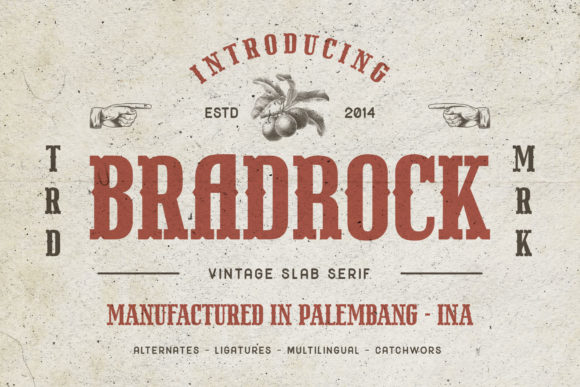
Bradrock Font: A Vintage Slab Serif Typeface for Your Retro Designs
Are you looking for a font that can instantly transport you back in time to the wild west era? Look no further than Bradrock, a vintage slab serif typeface inspired by old-school cowboy design and circus-style aesthetics. This font is perfect for creating retro-style logos, mugs, embroidery, prints, and more. In this article, we’ll dive into the features and benefits of Bradrock and explore how you can use it to add a touch of nostalgia to your designs.
What is Bradrock Font?
Bradrock is a slab serif typeface that draws inspiration from the classic designs of the American west. With its bold and rugged appearance, this font is perfect for creating eye-catching headlines, logos, and display text. The font’s vintage feel is reminiscent of old-timey cowboy posters, circus signs, and western-themed advertisements.
Design Inspiration
The design of Bradrock is rooted in the rich history of American typography. The font’s slab serif style is characterized by its bold, block-like serifs, which give it a sturdy and rugged appearance. The font’s inspiration comes from classic cowboy designs, circus-style typography, and vintage western advertisements. The result is a font that evokes a sense of nostalgia and timelessness.
Benefits of Using Bradrock Font
So why choose Bradrock for your design projects? Here are just a few benefits of using this versatile font:
• Vintage aesthetic: Bradrock’s retro-style design is perfect for creating vintage-inspired logos, posters, and prints.
• Highly versatile: This font can be used for a wide range of design projects, from logos and branding to packaging and signage.
• Easily readable: Despite its bold and rugged appearance, Bradrock is surprisingly easy to read, making it perfect for use in headlines and display text.
Uses for Bradrock Font
Bradrock is a highly versatile font that can be used for a wide range of design projects. Here are just a few ideas to get you started:
• Vintage logos: Create retro-style logos for your business or brand with Bradrock.
• Mugs and ceramics: Add a touch of nostalgia to your mug and ceramic designs with Bradrock.
• Embroidery: Use Bradrock for embroidery projects, such as custom patches and logos.
• Prints and posters: Create eye-catching prints and posters with Bradrock’s bold and rugged design.
• Packaging: Add a vintage touch to your packaging designs with Bradrock.
• Cards and invitations: Use Bradrock to create unique and eye-catching cards and invitations.
• Emblems and badges: Create custom emblems and badges with Bradrock’s bold and rugged design.
• Signage: Use Bradrock for signage projects, such as storefront signs and directional signs.
Technical Features of Bradrock Font
Bradrock is a technically advanced font that offers a range of features to make designing easier. Here are a few key technical features:
• OpenType features: Bradrock supports OpenType features, including ligatures and stylistic alternates.
• Multilingual support: Bradrock supports a wide range of languages, including English, Spanish, French, and more.
Tips and Tricks for Using Bradrock Font
Here are a few tips and tricks for getting the most out of Bradrock:
• Experiment with different sizes: Bradrock looks great in a range of sizes, from small headlines to large display text.
• Pair with other fonts: Try pairing Bradrock with other fonts to create a unique and eye-catching design.
• Use the swashes: Bradrock’s swashes can add a touch of elegance and sophistication to your designs.
• Try different colors: Bradrock looks great in a range of colors, from bold and bright to muted and pastel.
Bradrock is a versatile and stylish font that’s perfect for creating retro-style designs. With its bold and rugged appearance, PUA encoding, and technical features, Bradrock is a great choice for designers looking to add a touch of nostalgia to their work. Whether you’re creating vintage logos, mugs, embroidery, or prints, Bradrock is a font that’s sure to impress.